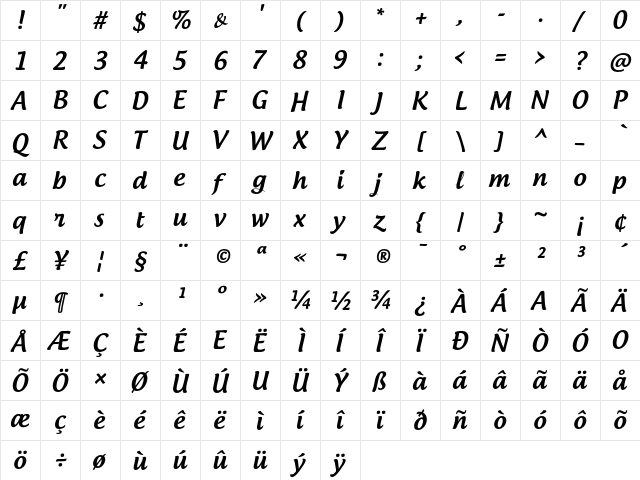
Androgyne Regular
| Foundry | Dimitri Castrique |
| Designer | Dimitri Castrique |
Design Context for Androgyne Typeface
Androgyne takes a measured approach to typography — its balanced proportions and neutral character make it a reliable workhorse for both digital and print work.